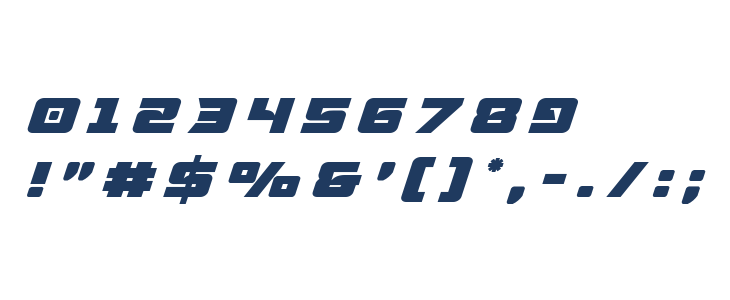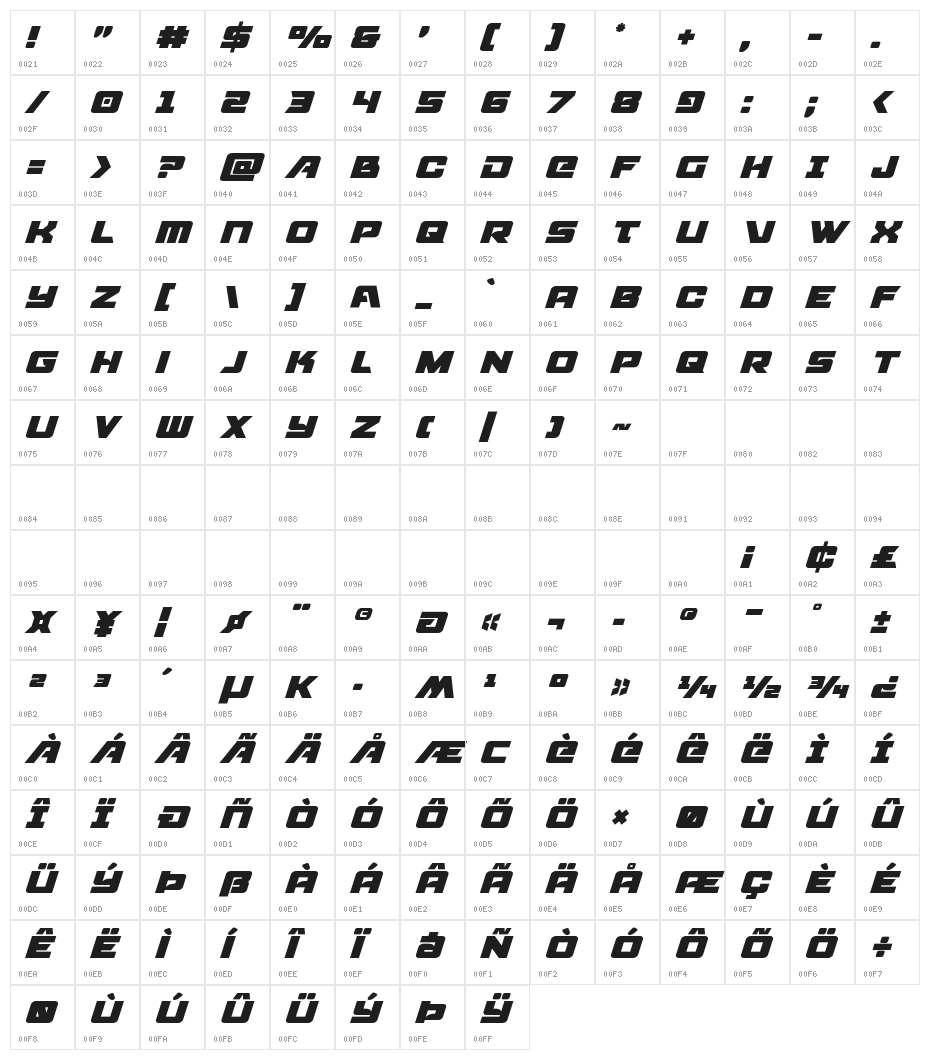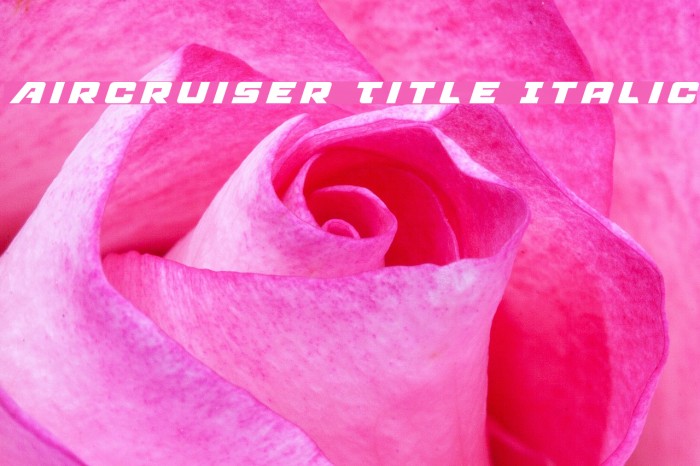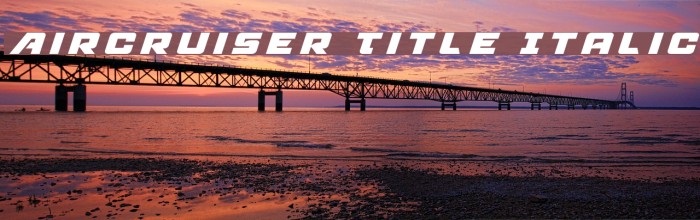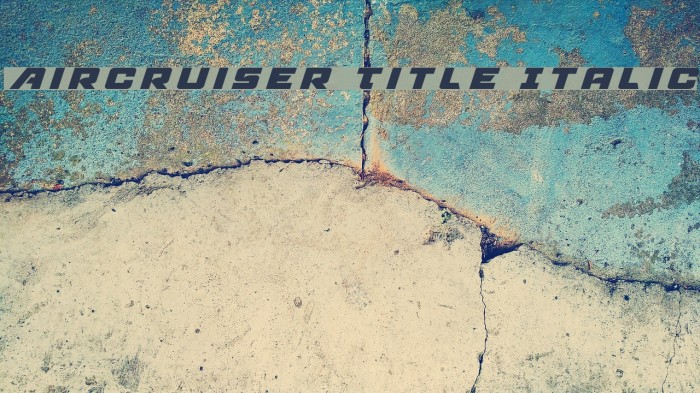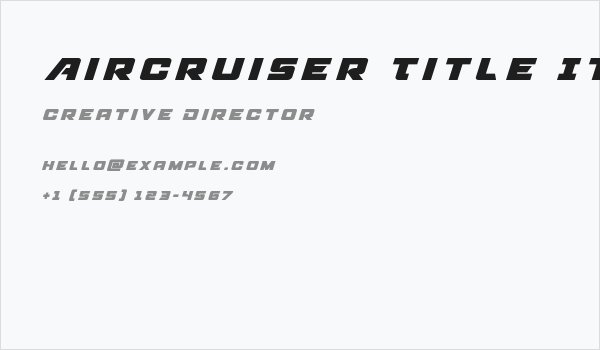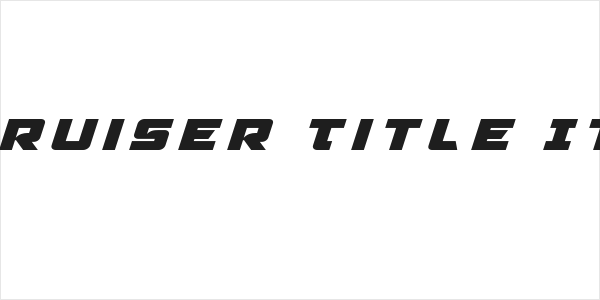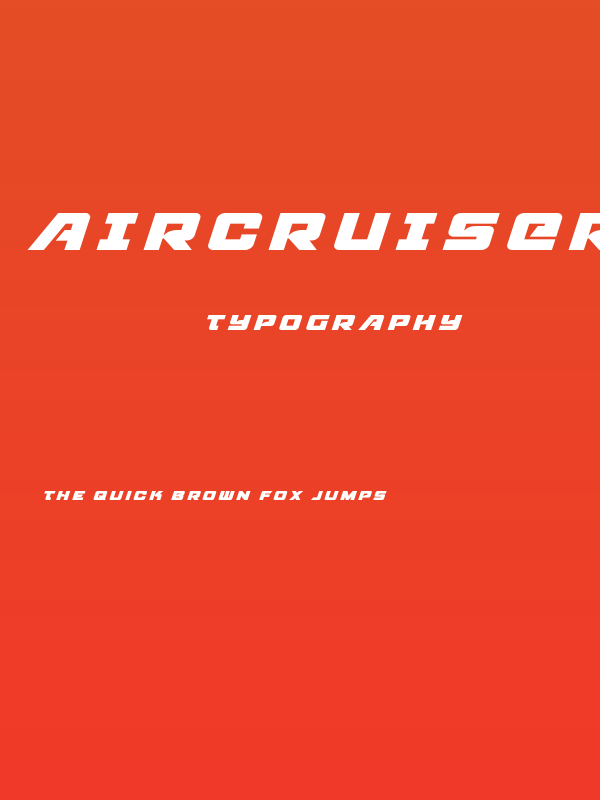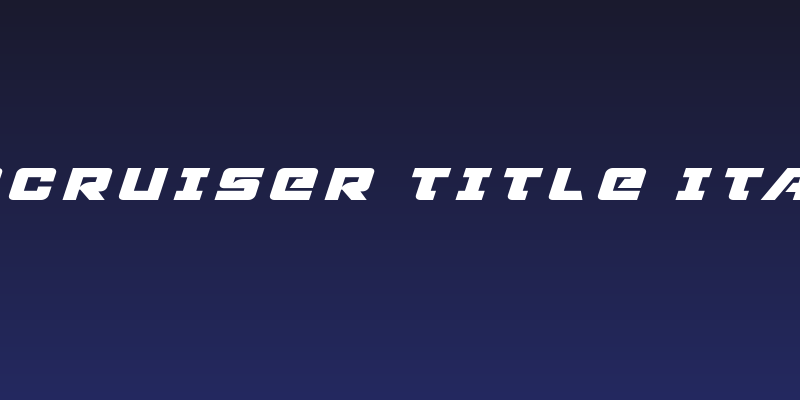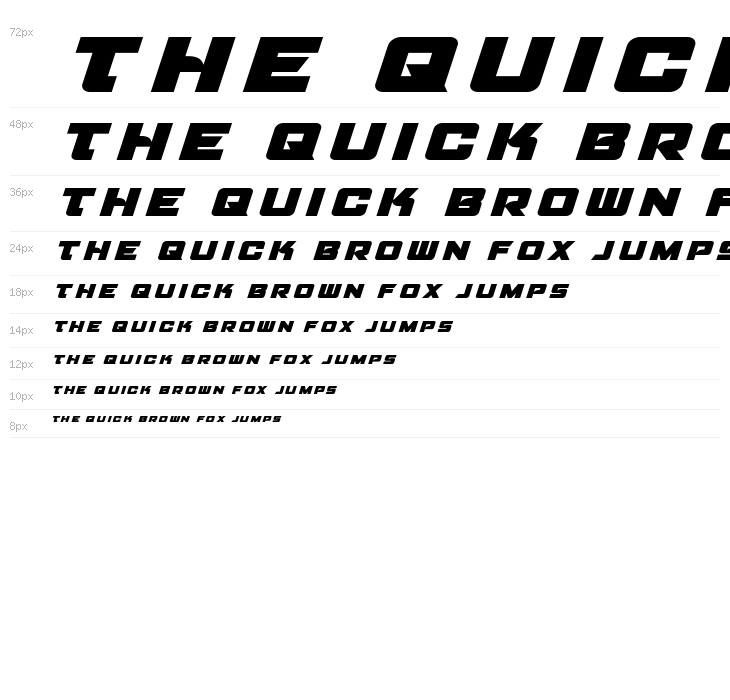
Aircruiser Title Italic Font
Aircruiser Title Italic Description
This font features a bold and dynamic design with a distinct italic slant, giving it a sense of motion and energy. The characters are wide and angular, with sharp edges and a futuristic aesthetic. The uppercase and lowercase letters maintain a consistent style, while the numerals and special characters complement the overall look. The font's boldness and unique style make it suitable for attention-grabbing headlines and titles. Its geometric shapes and strong presence are ideal for projects that require a modern and impactful appearance.
| Proposed Projects | Ideal for sci-fi themed posters, video game titles, sports branding, and dynamic advertising campaigns. |